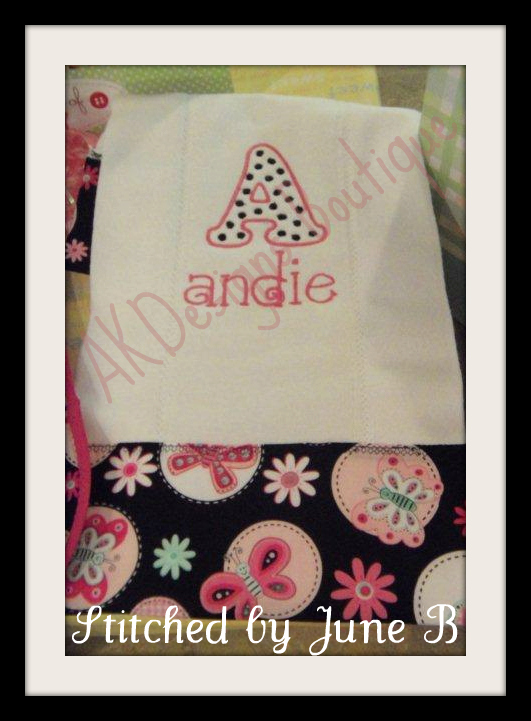
No 376 POLKA DOT Font Uppercase ONLY Embroidery Designs 6 inch high
• Burp Cloth made by June B ~ how cute!
• L and S are from our #77 Girly Font set and the N is from this set [#376].  Finished height and width are 5.9” x 9.6”
• E and S are from our #77 Girly Font set and the B is from this set [#376].  Finished height and width are 5.9” x 9.3”
• A and K are from our #374 Polka Dot Font 4" set and the M is from our #376 Polka Dot Font 6”set.  Finished height and width are 6” x 13”
• S and E are from our #374 Polka Dot Font 4" set and the C is from our #376 Polka Dot Font 6”set.  Finished height and width are 6” x 10.7”
No 376 POLKA DOT Font Uppercase ONLY Embroidery Designs 6 inch high
AKD Exclusive
This set contains 26 Designs in 2 colors [outline and dots only]:
• 26 Uppercase Letters ONLY - 6" high
Designed for 1 Letter Monograms